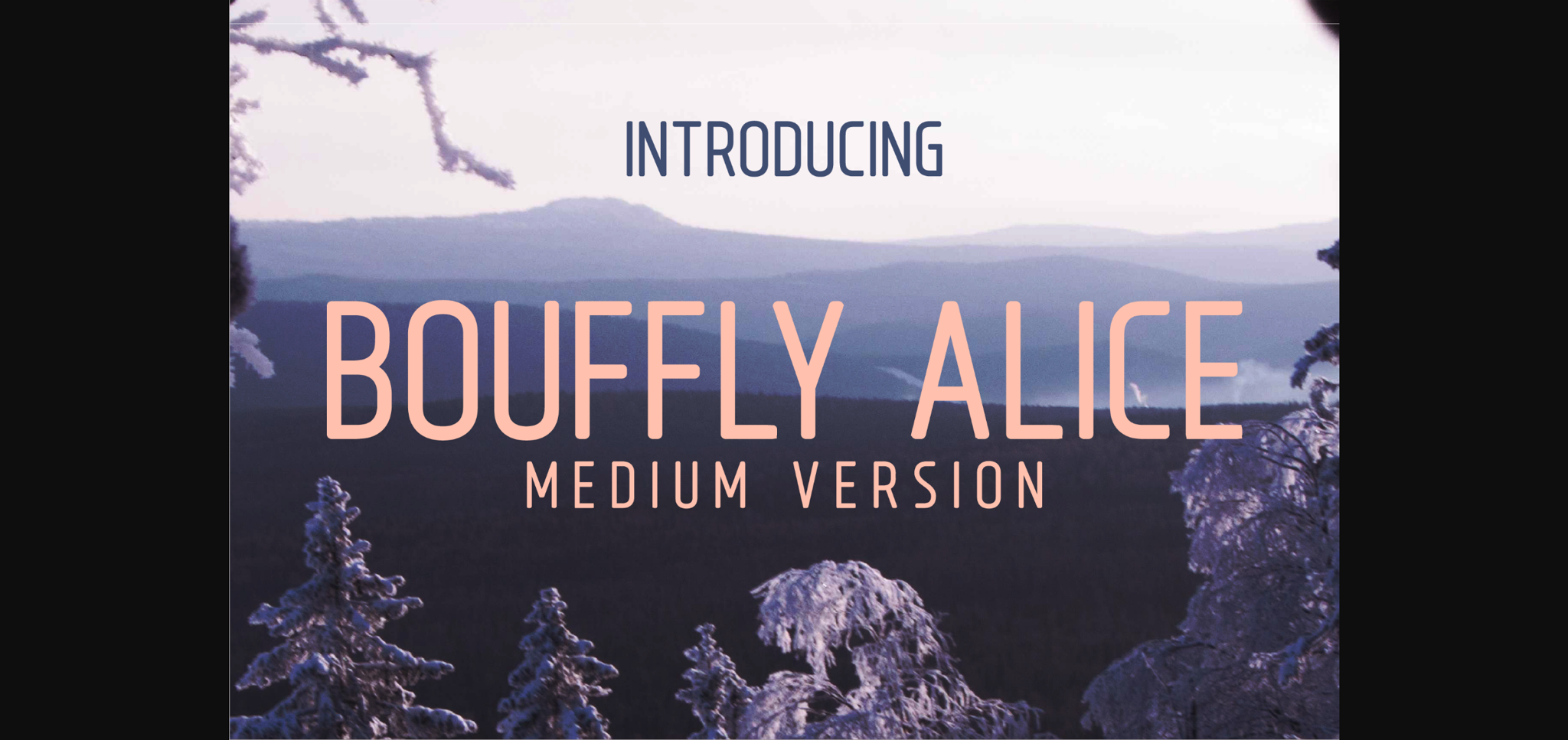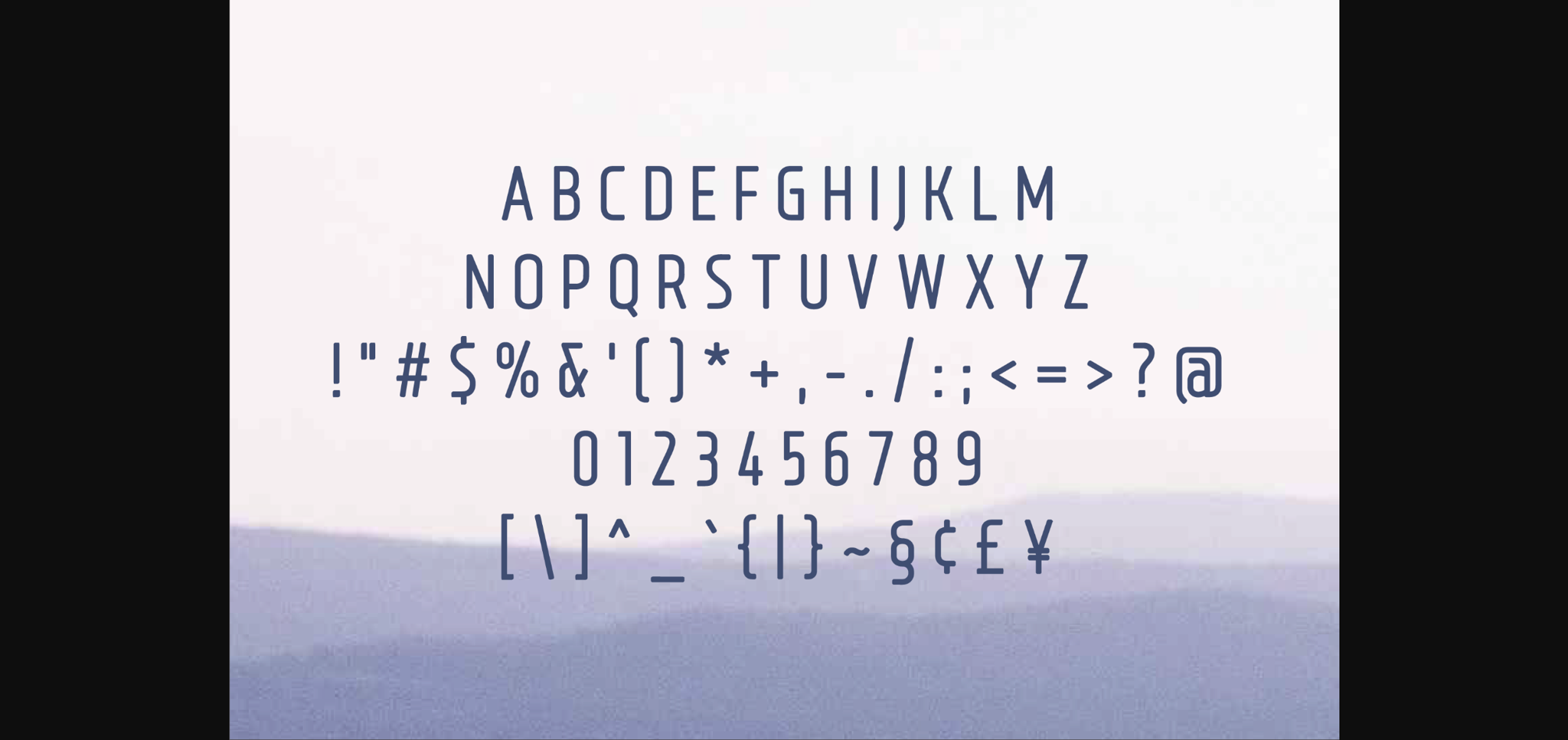
HomeSans Serif FontsBouffly Alice Medium Font Sans Serif Fonts Bouffly Alice Medium Font FacebookXPinterestWhatsApp 1 of 4 ... Bouffly Alice Medium Font Poster 2... Bouffly Alice Medium Font Poster 3... Bouffly Alice Medium Font Poster 4... About Bouffly Alice Medium Font Bouffly Alice Medium is a modern and charming sans serif font with a timeless feel. Get inspired by its elegant simplicity! DOWNLOAD NOW People also explored Bonithy Rossela Font Authentiue Font Wolfers Font Yellow Font Localghost Font Pimmy Planet Inter Font History Font Wish of Christmas Font Girly Font 332 0 TagsBouffly Alice Medium Font Previous articleBouffly Alice Light FontNext articleBouffly Alice Bold Font LEAVE A REPLY Cancel reply Comment: Please enter your comment! Name:* Please enter your name here Email:* You have entered an incorrect email address! Please enter your email address here Website: Save my name, email, and website in this browser for the next time I comment. Personal Use Free Rocketto Personal Use Free Read more about this font 1313 Mockingbird Lane Personal Use Free Read more about this font Shawaki Personal Use Free Read more about this font Borg Personal Use Free Read more about this font BLOG Fonts That Capture the Spirit of New York City New York City is more than just a place—it’s an experience, a rhythm, a visual language... Exploring Font Trends Best Fonts for YouTube Videos: Make Your Thumbnails Stand Out To increase your work productivity, choose the most readable fonts.